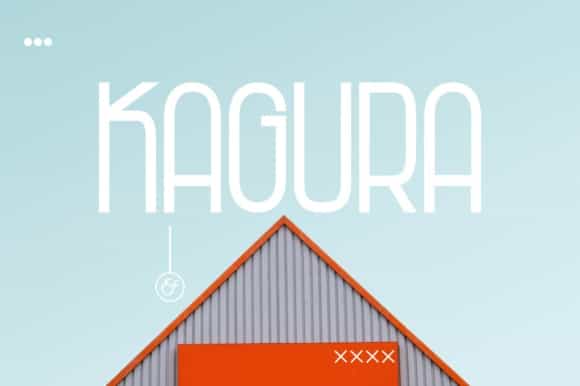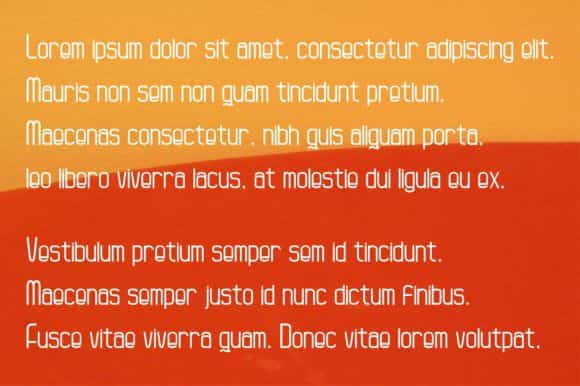
Discover Kagura Typeface, part of the Sans Serif Display Retro collection—a versatile and unique font perfect for adding a personal touch to your projects. Download it for free and enjoy crafting designs with style, from invitations to social media posts. This font is available exclusively for personal use, giving you the freedom to create without limits. Unlock your creativity with Kagura Typeface today!
Introducing Kagura Font. It was created and is maintained by Ef Studio. The Kagura is a sans serif with high letters and a sexy look. It is suitable for all designs that want to have a vibrant, sexy and at the same time classy look.